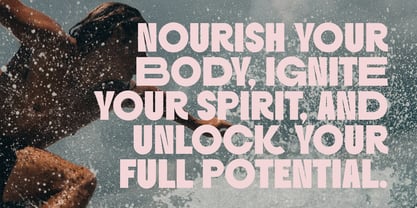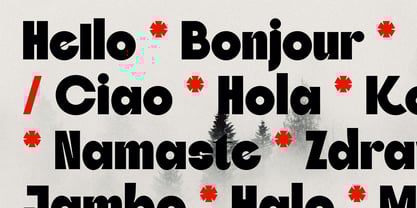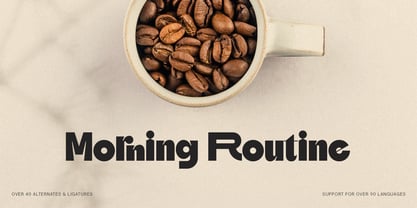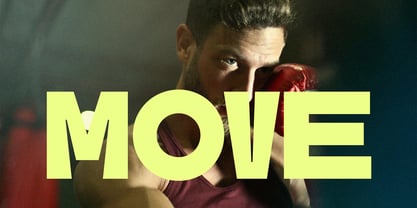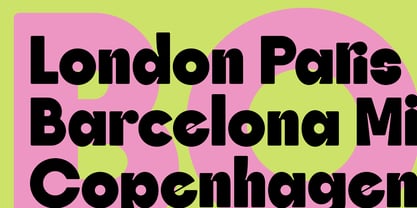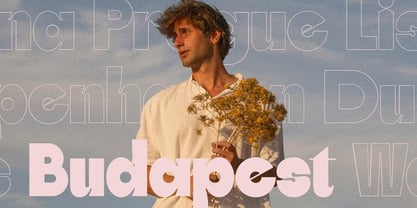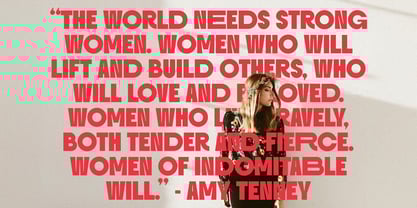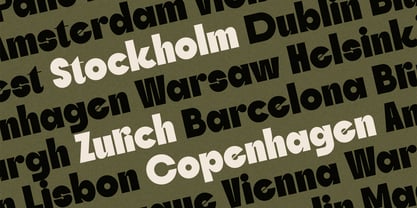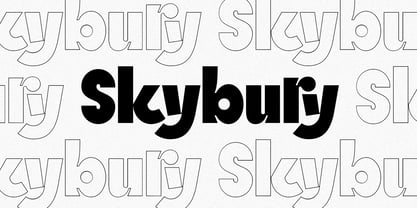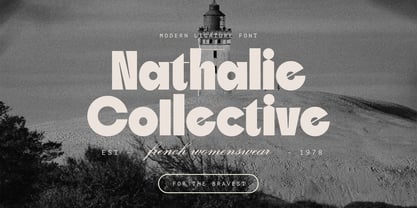
SLTF Skybury
Introducing SLTF Skybury, a bold and daring sans-serif typeface meticulously designed for creatives who want to make a statement. Skybury is a modern typographic masterpiece that combines boldness, versatility, and elegance, offering unparalleled potential for your design projects.
Key Features:
• 40+ Ligatures & Alternates: Skybury is equipped with a robust set of ligatures and alternates, allowing seamless customization and adding a distinct flair to your text. Whether you’re designing branding, headlines, or logotypes, these features ensure your work stands out.
• Support for Over 90 Languages: Inclusivity is at the heart of Skybury. With multilingual support, this typeface is ready to tackle projects for diverse audiences around the globe.
• 4 Unique Versions: Choose from Regular, Round, Regular Outline, and Round Outline styles to match the tone and personality of your designs. Whether you’re looking for bold elegance or modern chic, Skybury delivers.
• Bold & Daring Aesthetic: Skybury’s clean and striking design brings a confident edge to every application, from packaging and branding to social media graphics and beyond.
Why Choose Skybury?
Skybury embodies boldness and creativity, making it perfect for projects that demand attention. Its versatility across four distinct styles and robust character set provides endless possibilities for creating compelling designs that leave a lasting impression. Whether you’re working on a high-end fashion campaign, a motivational quote, or sleek product packaging, Skybury adapts effortlessly to your creative vision.
Transform your designs into works of art with SLTF Skybury. Perfect for modern branding, editorial design, advertising, or any creative project where boldness meets sophistication.